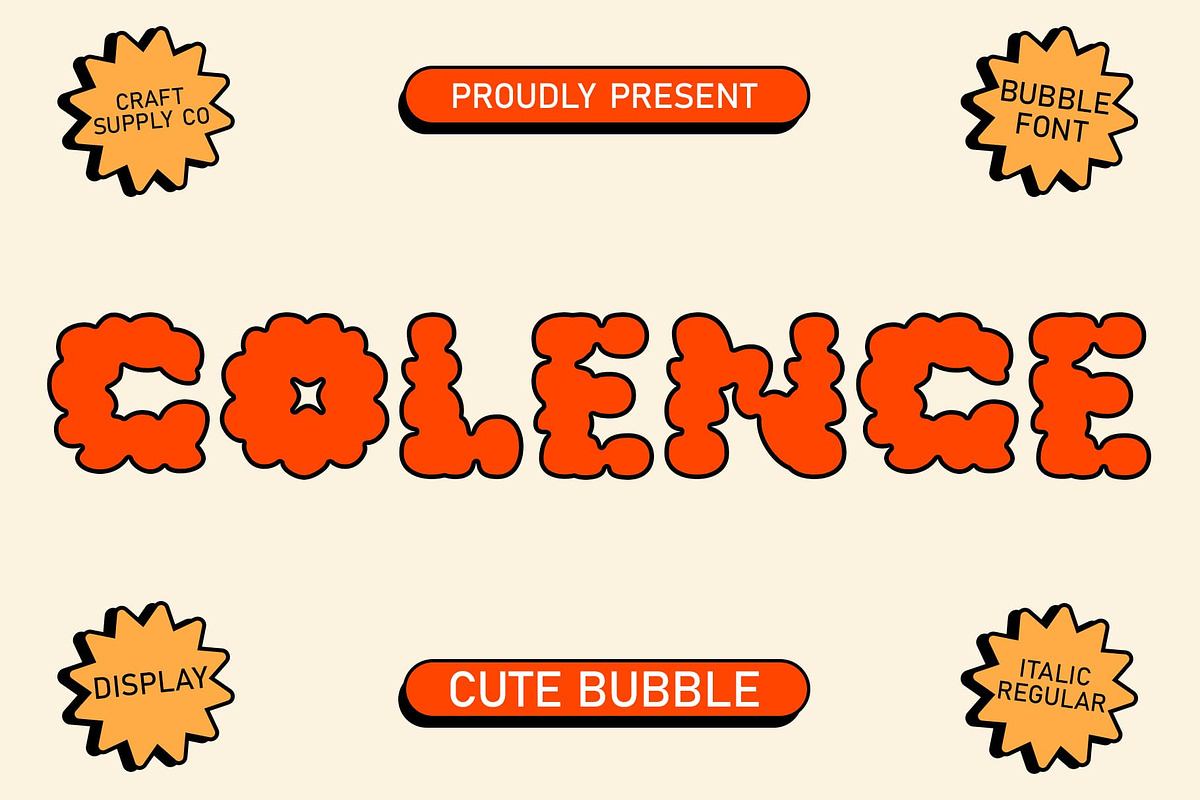
Colence – Cloudy Font Free Download
Colence Cloudy Font Free Download
Colence Cloudy Font Free Download is a unique and modern typeface that combines smooth, rounded edges with a playful, cloud-like aesthetic. With its soft curves and friendly appeal, this font is perfect for creative branding, social media graphics, children's content, invitations, and more.
The font's airy and lightweight design makes it ideal for projects that need a fun, approachable, and fresh look. Whether you're working on casual branding, seasonal designs, or custom artwork, Colence Cloudy brings a sense of warmth and whimsy to your typography.